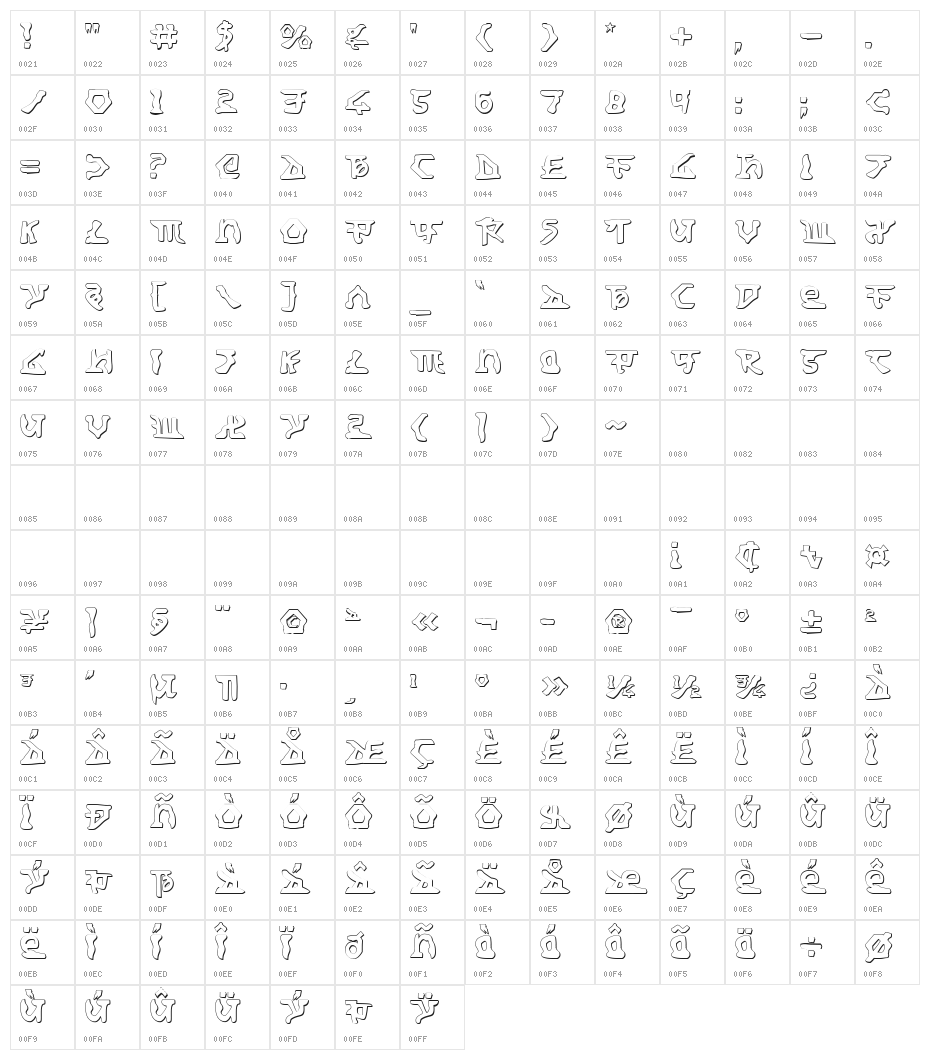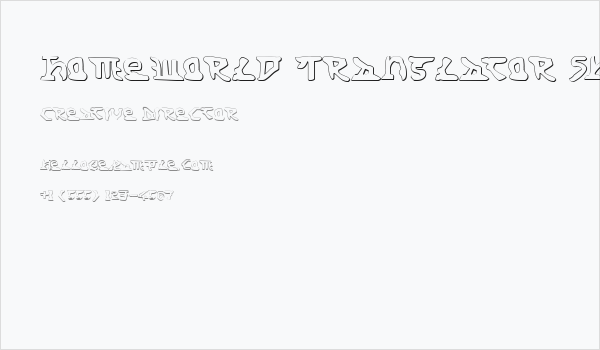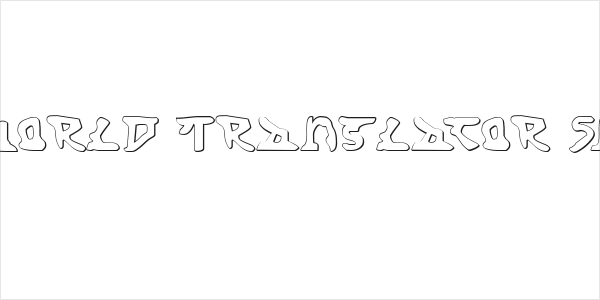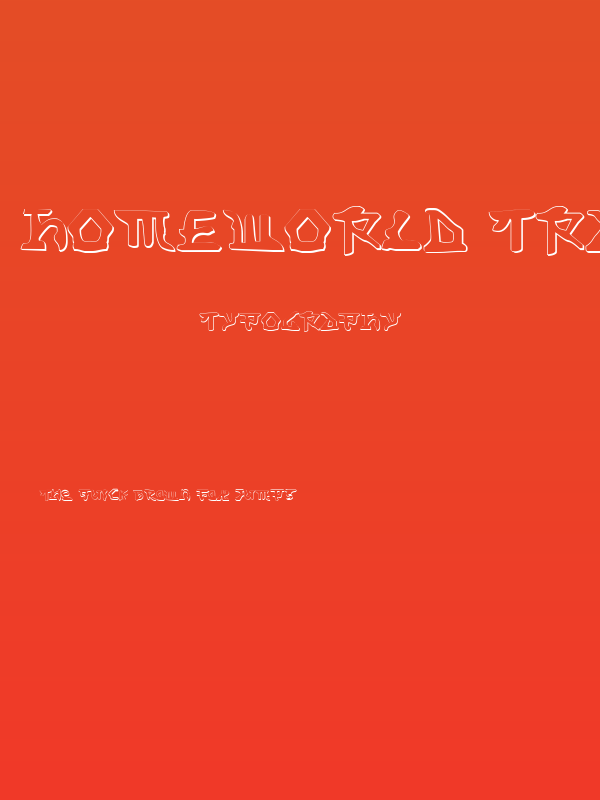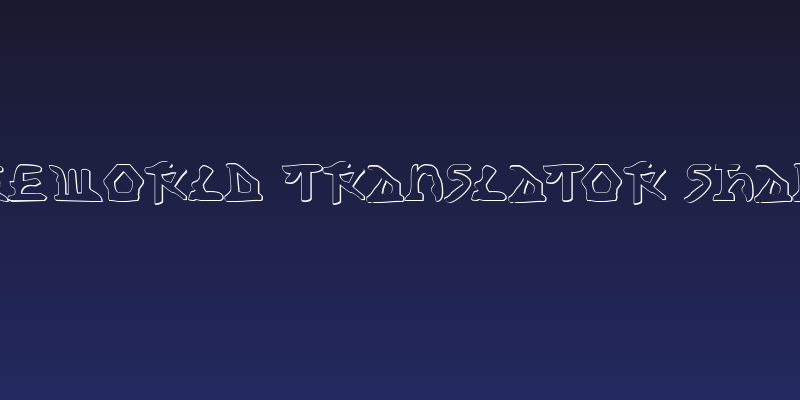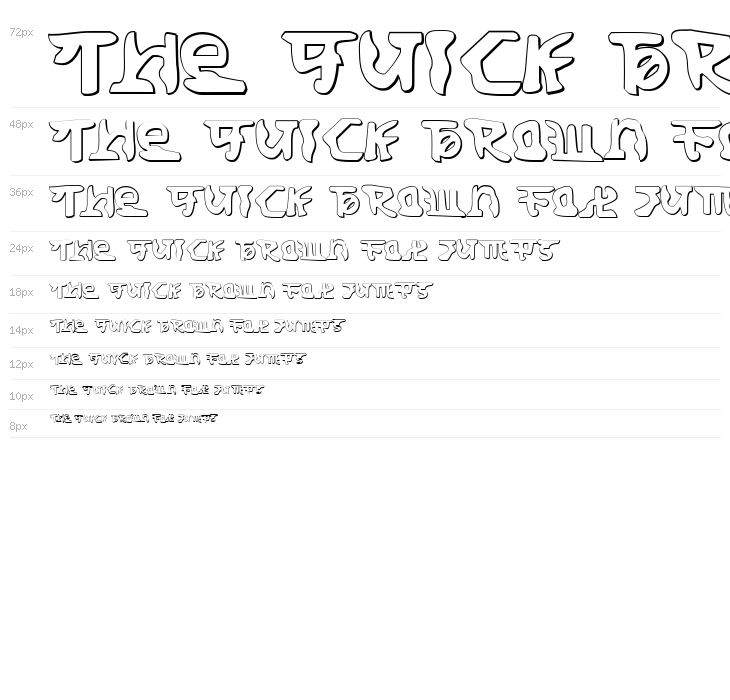
Homeworld Translator Shadow Font
Homeworld Translator Shadow Description
This font features a unique, futuristic design with bold, angular shapes and a shadow effect that gives it a three-dimensional appearance. The characters are stylized with sharp edges and geometric forms, creating a sense of movement and energy. The uppercase and lowercase letters maintain a consistent style, with variations in height and width that add visual interest. Numbers and special characters are designed to match the overall aesthetic, making this font suitable for creative and modern projects. Its distinctive look is ideal for capturing attention and conveying a sense of innovation.
| Proposed Projects | Ideal for sci-fi themed designs, video game titles, futuristic branding, and creative posters. |